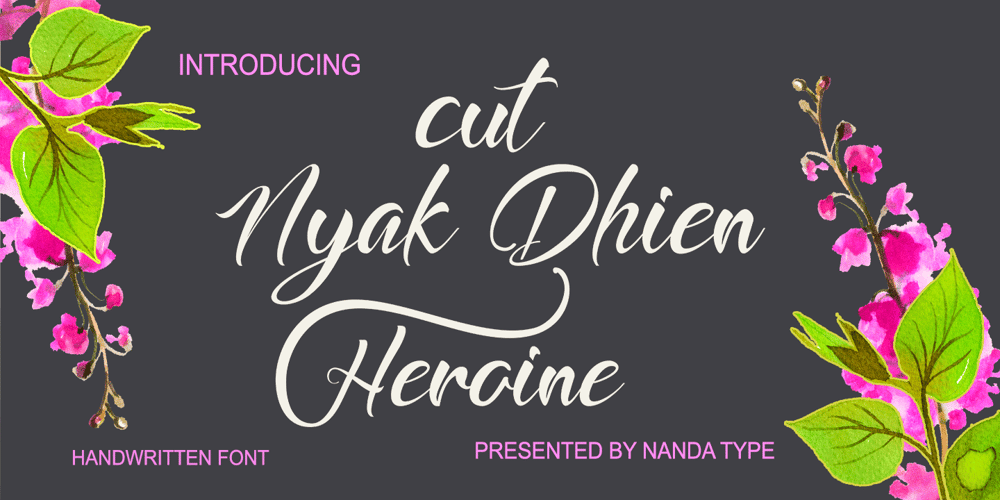
Cut Nyak Dhin Font Family was designed by Nanda Type and published by Nandatype Studio. Cut Nyak Dhin contains 1 styles and family package options. Cut Nyak Dhin is a modern script with handwriting, decorative characters, designed to perfectly combine informal, sassy, romantic, sweet scripts. Hand-drawn design elements allow you to create many beautiful typographic designs in an instant like branding, logos, web design and editorial, prints, invitations, crafts, quotes, and more.